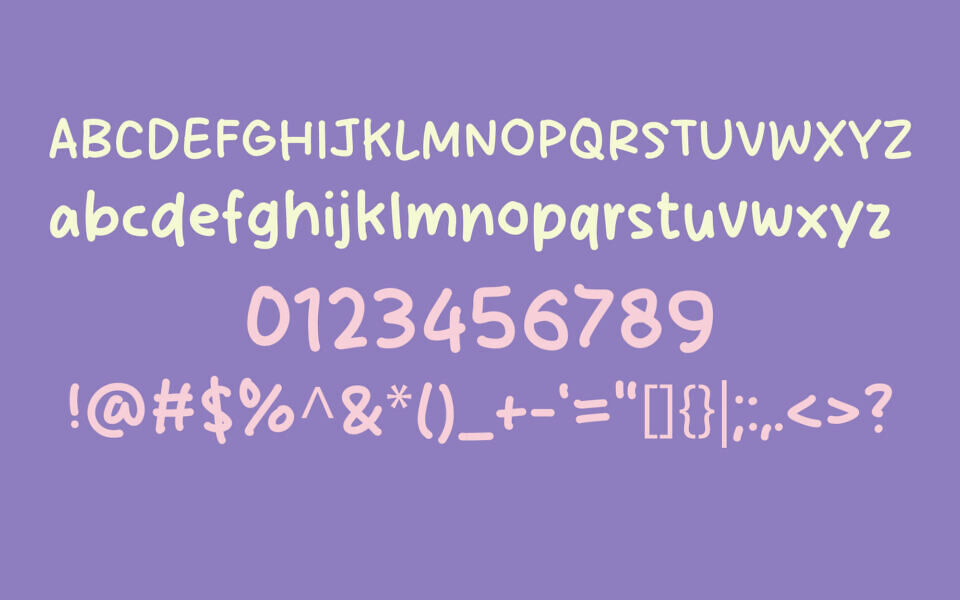
Sunset Friday font, a free handwritten font by Origin Type, is designed to mimic organic shapes and offer a casual feel. With naturally drawn lines and imperfections, this display typeface creates letters that carry a personal touch. These can instantly add a relaxed vibe to your designs with their effortless look.
Use Sunset Friday font for branding projects like logo designs, labels, packaging boxes, gift wrappers or bags. Combine it with artwork when using it in creative platforms for invitation cards of weddings and other events. Integrate it in stationery designs like business cards or greeting cards as well as heading sections of websites or blogs.